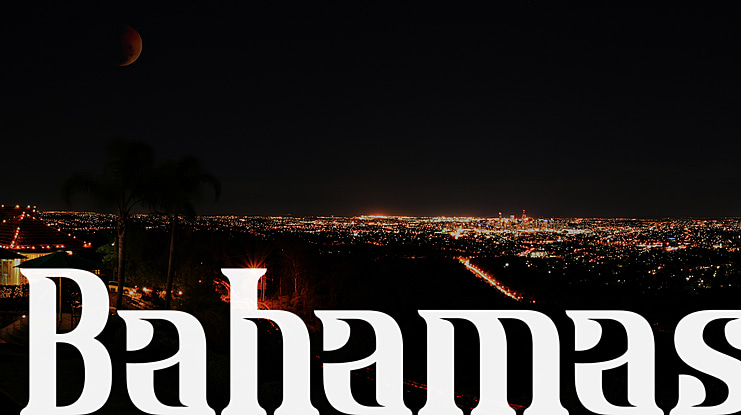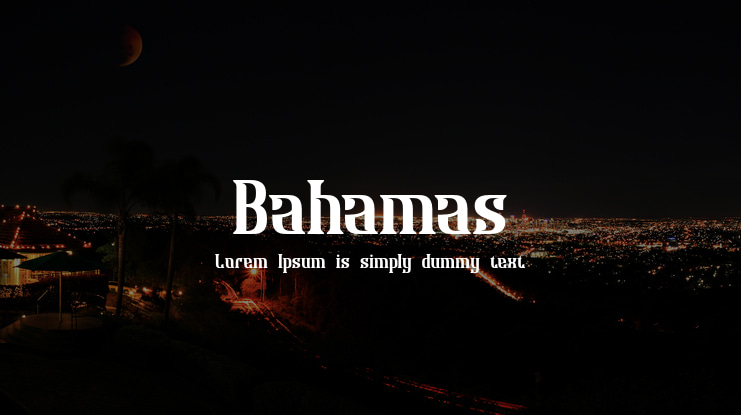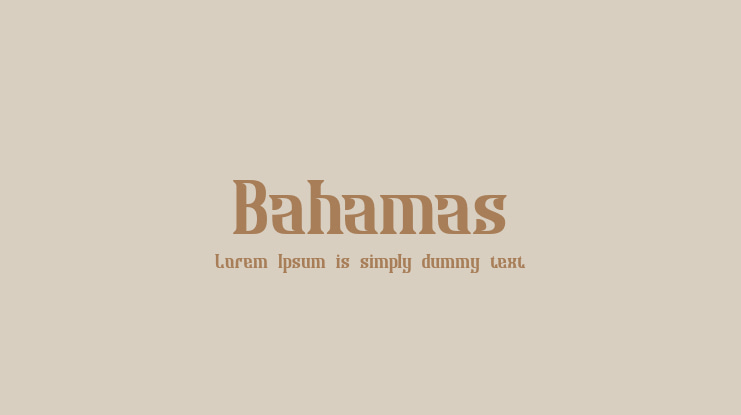
Bahamas Font
This is an absolutely elegant serif typeface inspired by the vintage surfing poster design that i saw on some coffee shop, It was crafted by hand specially to add natural handmade feeling in its brand identity than i make it clean with pentool.
Opentype features Bahamas font has 198 character set included Bahamas Font is very good looking in logo, labels, t-shirt prints, product packaging, invitations, advertising and others.